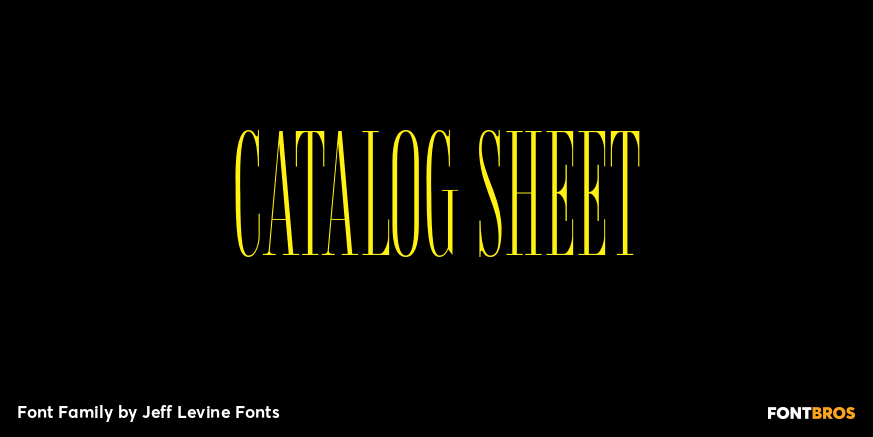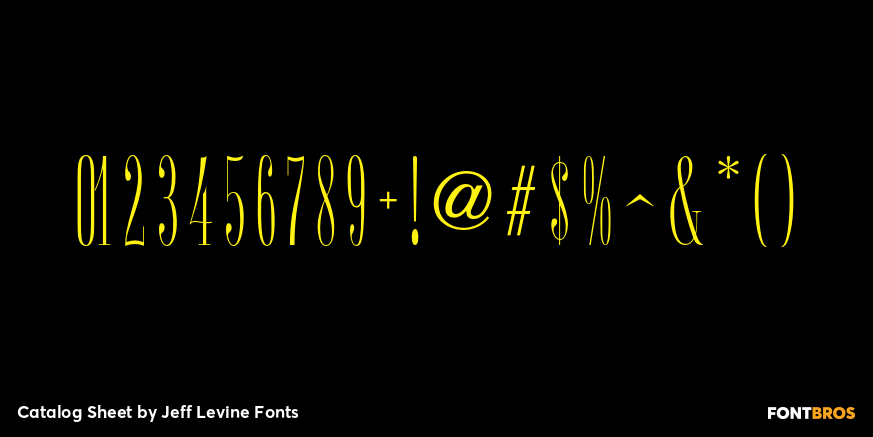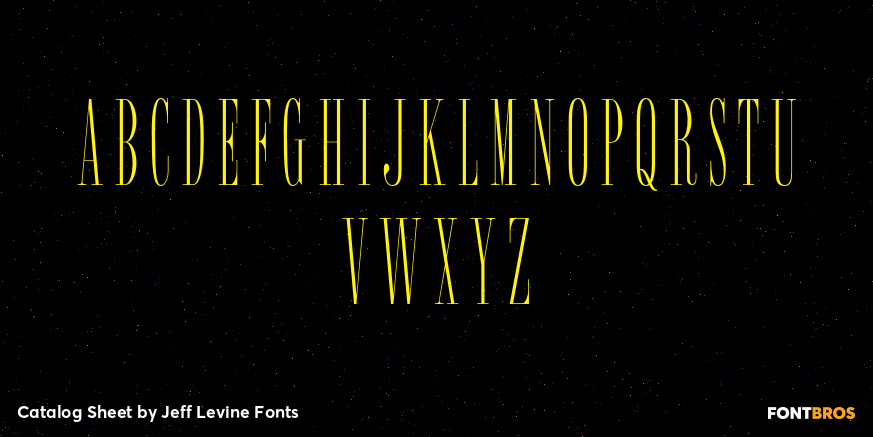
Catalog Sheet
Catalog Sheet JNL is the digital version of an extra condensed serif typeface from the 1892 MacKellar, Smiths & Jordan type foundry specimen book. The font is available in both regular and oblique versions.